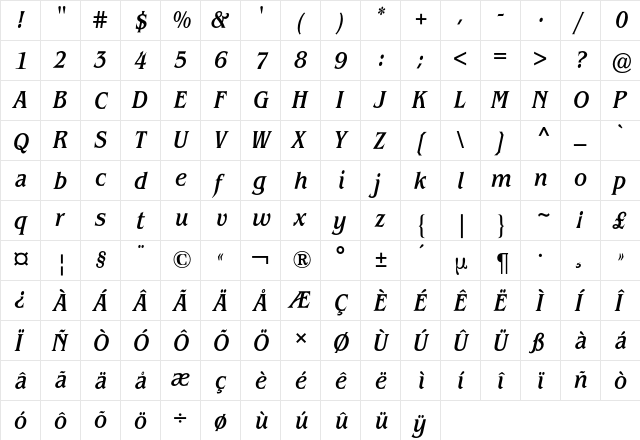
Benguiat BQ Regular Font Preview
Benguiat BQ Regular
Benguiat BQ Regular Font Details
Design Context for Benguiat BQ Typeface
Benguiat BQ is a composed and adaptable typeface that performs quietly and consistently across a wide range of design contexts.
First published in 1992, this typeface is available in OpenType (OTF) format.